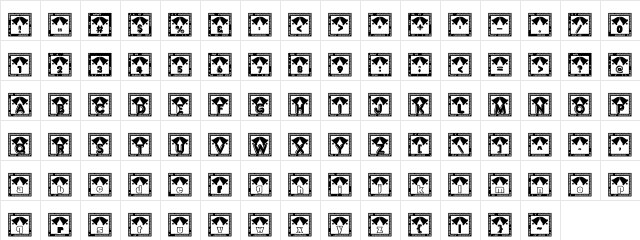
Holialpha decorative
Design Context for Holialpha Typeface
Holialpha brings ornamental detail and strong personality to headlines and identities, where visual impact matters more than quiet functionality.
Font Pairing: Pair with a clean neutral sans-serif for body copy to let Holialpha's character lead without overwhelming the composition.
Pro Tip: Use Holialpha exclusively at display sizes — it was designed to be seen, not read at length. Let a neutral companion handle body copy.